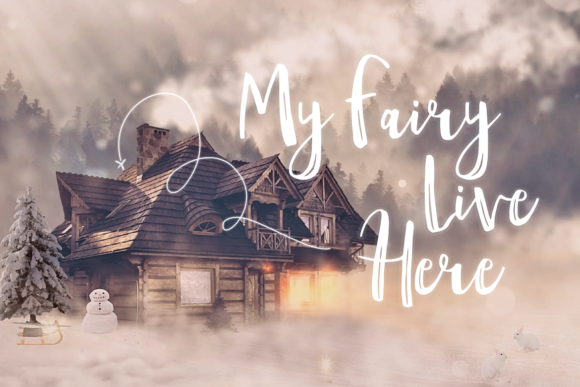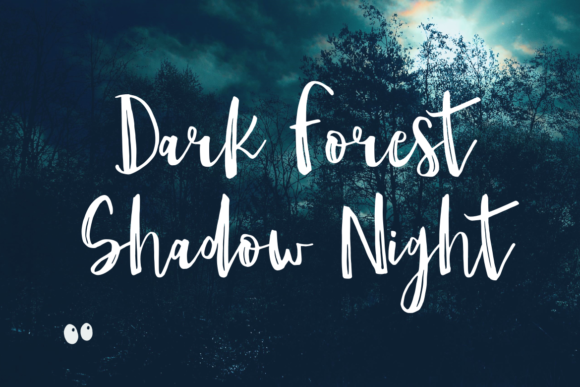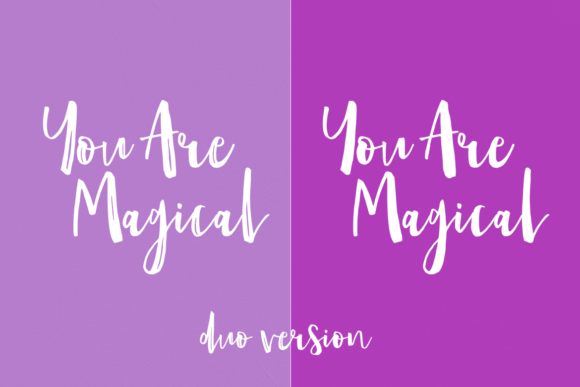
Introduction to Amist Font
Amist is a stylish handwritten font suitable for projects such as logos, book covers, t-shirt designs and much more.
Use this font to give your next designs a tasteful and authentic look .
Key Features of Amist Font
Why Choose Amist Font?
Amist Font offers exceptional quality and versatility, making it a valuable addition to your design toolkit. Whether you’re creating for personal projects or commercial use, Amist Font delivers professional results.